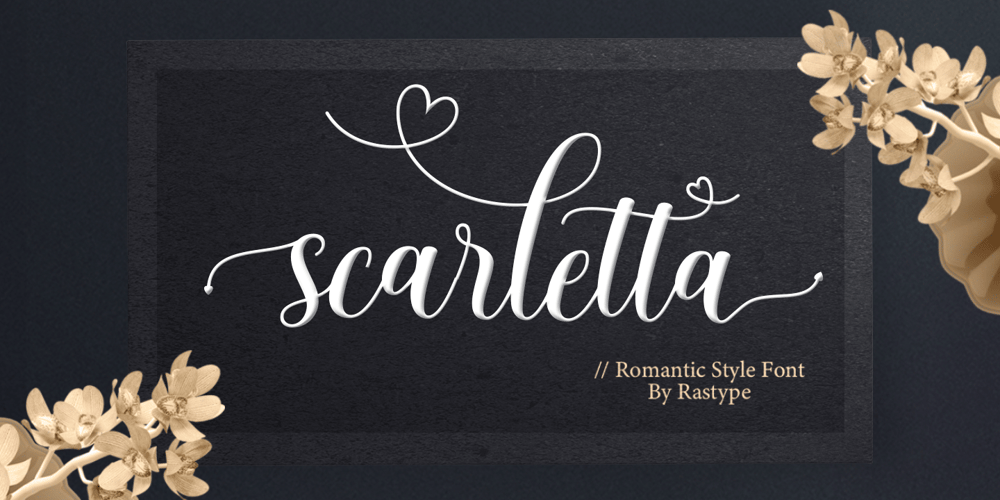
Scarletta Script Font Family was designed by Muhammad Taufik and published by Rastype Studio. Scarletta Script contains 2 styles and family package options. Scarletta Script is a romantic and sweet calligraphy typeface with characters that dance along the baseline. It has a casual and yet elegant touch. It can be used for various purposes such as logos, wedding invitations, headings, t-shirts, letterhead, signage, lables, news, posters, badges etc.The fonts include OpenType features with stylistic alternates, ligatures and multiple language support.To enable the OpenType Stylistic alternates, you need a program that supports OpenType features such as Adobe Illustrator CS, Adobe Indesign & CorelDraw X6-X7, Microsoft Word 2010 or later versions.There are additional ways to access alternates/swashes, using Character Map (Windows), Nexus Font (Windows), Font Book (Mac) or a software program such as PopChar (for Windows and Mac).